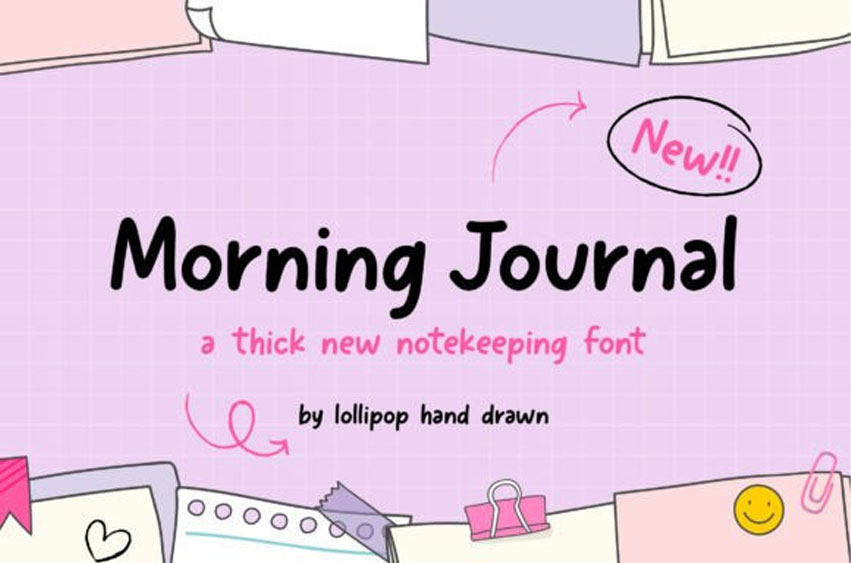
Morning Journal Font is an exquisite modern script font, featuring sleek and fluid lines that exude sophistication and class.
Its fine details and precise curves create a sense of luxury, making it perfect for high-end branding and upscale events. Make a statement and elevate your designs with this stunning and timeless font.